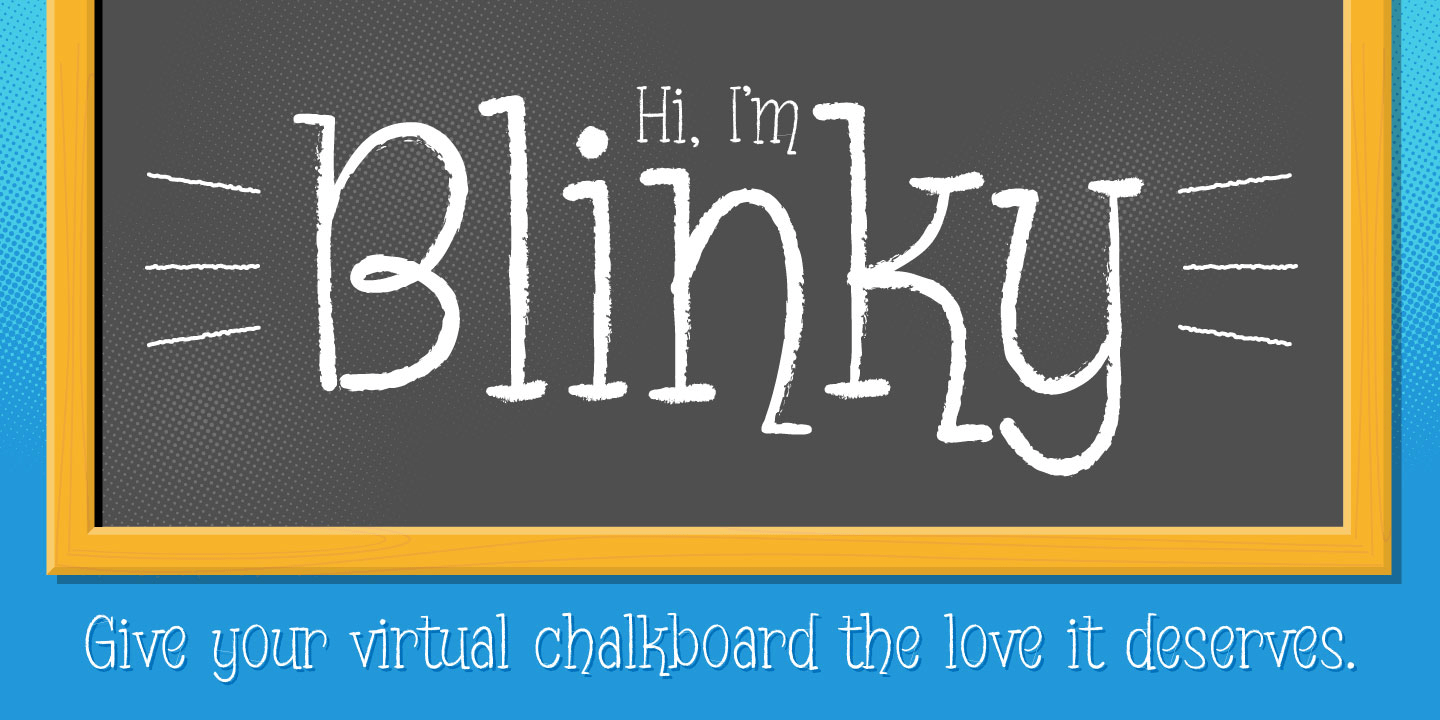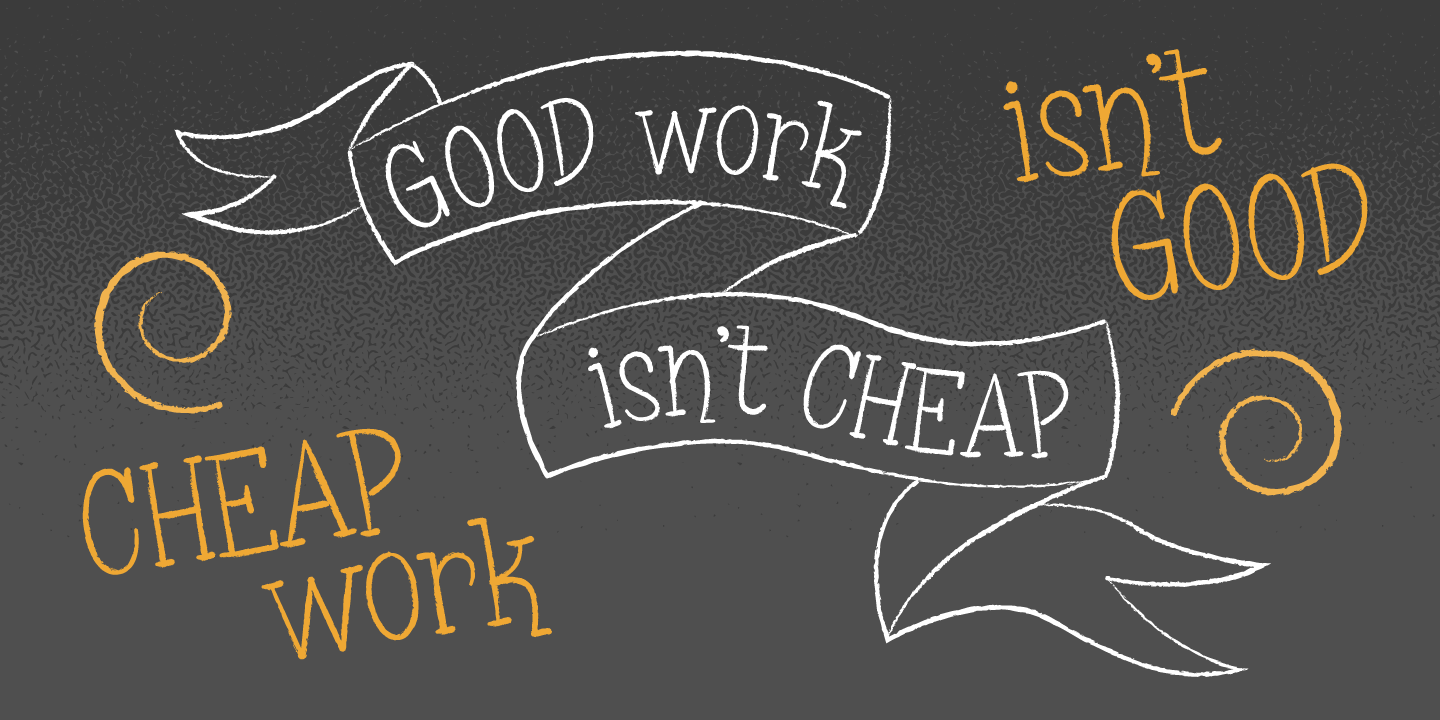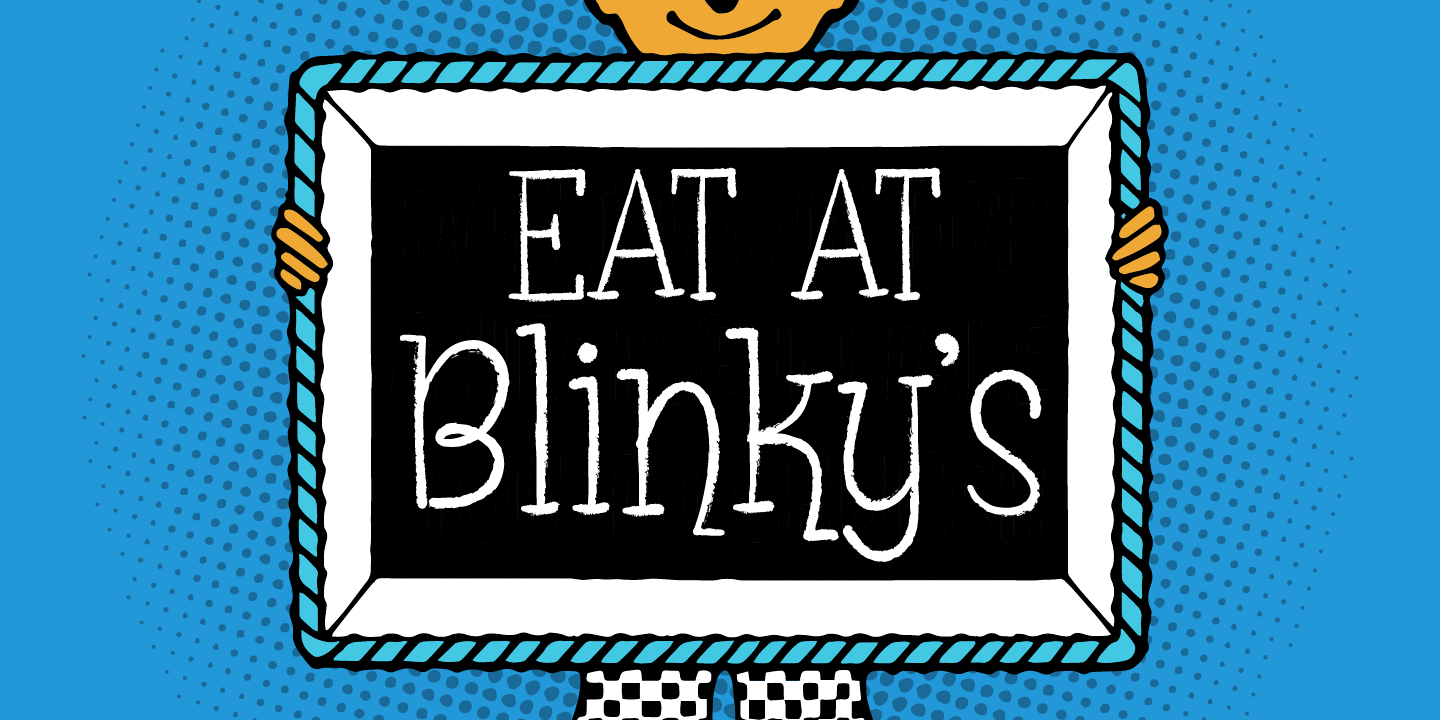
Blinky
Font Family by Sideshow
It's all right, outta sight and definitely not uptight. It's Blinky, the new all-occasion, casual typeface from Squid and Sideshow! Why, it's even guaranteed to be 50% less square than your average font. So for all you groovy guys and gals makin' the scene, it's out with the stinky and in with the Blinky!